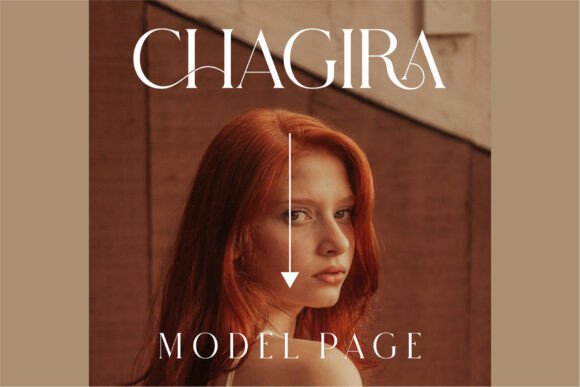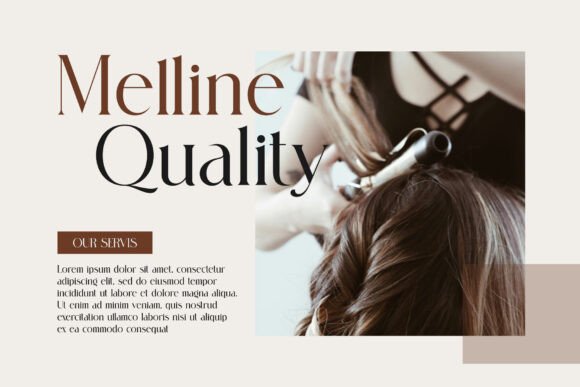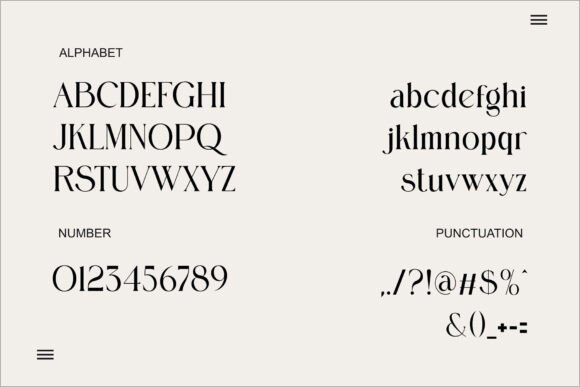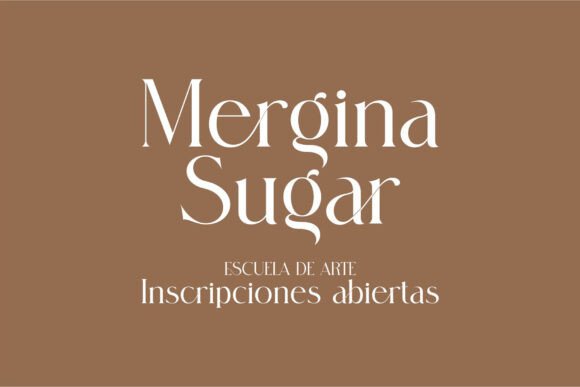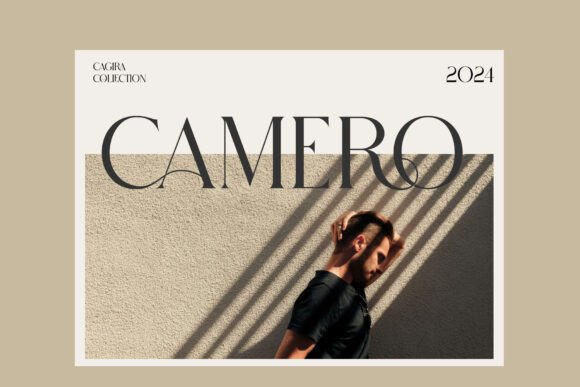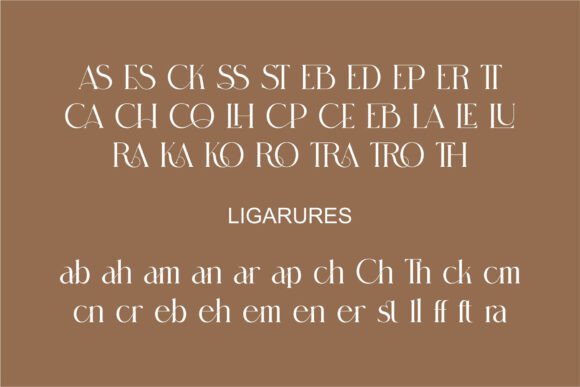
Introducing Chagira Font: The Epitome of Elegance and Sophistication
In the realm of typography, the quest for the perfect font is a perpetual journey. For designers and crafters, the right font can elevate a project from mundane to magnificent. It is with great excitement that we introduce Chagira Font, a new editorial serif that embodies the essence of elegance and sophistication. Characterized by clean and soft lines, tight curves, and a trendy aesthetic, Chagira is poised to revolutionize the world of typography.
The Design Philosophy Behind Chagira
Chagira’s design is rooted in a deep understanding of modern typographic needs. Its creators aimed to craft a font that not only pays homage to traditional serif fonts but also incorporates a fresh, contemporary vibe. The result is a typeface that exudes a sense of luxury and refinement, making it perfect for high-end editorials, branding, and packaging projects.
One of the defining features of Chagira is its clean and soft lines. These are not just aesthetically pleasing but also highly legible, ensuring that text flows smoothly and effortlessly, regardless of the medium. The tight curves add a dynamic touch, preventing the font from feeling too rigid or traditional. This blend of classic and modern elements makes Chagira incredibly versatile.
Key Features of Chagira Font
- Editorial Serif: Chagira’s serif design lends it an air of sophistication, perfect for editorial use.
- Clean and Soft Lines: Ensuring clarity and readability, these lines make Chagira suitable for both digital and print media.
- Tight Curves: Adding a modern twist to the classic serif font, enhancing its aesthetic appeal.
- Trendy Elegant Look: Giving it a contemporary feel that’s ideal for brands looking to convey luxury and style.
Applications of Chagira Font
Chagira’s versatility means it can be used across a wide range of projects. Here are a few examples:
- Editorials and Magazines: Its elegant look makes it perfect for editorial content, adding a touch of sophistication to any publication.
- Branding and Logo Design: For brands aiming to convey a sense of luxury and elegance, Chagira can be a valuable asset.
- Packaging: Whether it’s for high-end cosmetics, fashion labels, or gourmet foods, Chagira can enhance the perceived value of a product.
- Digital Media: Its legibility on screens makes it suitable for websites, blogs, and digital marketing materials.
Why Choose Chagira Font?
In a sea of fonts, Chagira stands out for several reasons:
- Uniqueness: While it pays homage to traditional serif fonts, Chagira’s modern twist sets it apart.
- Versatility: Its adaptability across various mediums and projects makes it a valuable addition to any designer’s toolkit.
- Elegance: Chagira’s trendy yet elegant look can elevate any project, making it suitable for clients looking for a sophisticated aesthetic.
Chagira Font represents a significant leap forward in typographic design. Its blend of classic elegance and modern trends makes it an invaluable resource for designers and crafters seeking to create impactful, stylish content. Whether you’re working on an editorial, branding project, or digital media, Chagira offers the perfect blend of sophistication and legibility. As the world of design continues to evolve, fonts like Chagira will be at the forefront, leading the way towards a more elegant, refined, and aesthetically pleasing future.